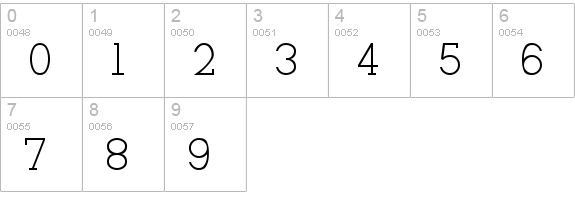
PCGoodie Font Details
PCGoodie is a visually stunning font that is sure to capture the attention of anyone who lays eyes on it. With its clean and modern design, PCGoodie is perfect for a wide range of projects, from professional presentations to creative designs. This font features a unique combination of bold and elegant strokes, resulting in a truly captivating typeface. One of the best things about PCGoodie is that it is completely free! Yes, you read that right, this amazing font can be downloaded and used without any cost. It's the perfect choice for those who are looking for a high-quality font without breaking the bank. To get your hands on PCGoodie, simply head over to FontsMarket.com, where it is freely available for download. FontsMarket.com is a trusted source for a wide variety of fonts, and PCGoodie is just one of the many incredible options you'll find there. Whether you're a professional designer or someone who just wants to spruce up their documents, PCGoodie is a font that you won't want to miss out on. Its versatility and eye-catching design make it a go-to choice for any project. So why wait? Download PCGoodie today and see how this font can elevate your work to the next level.